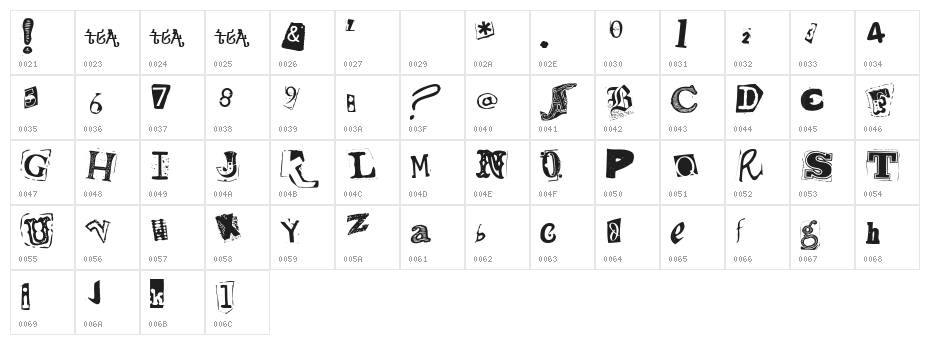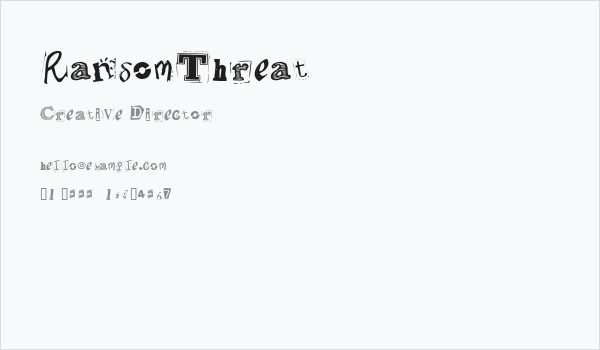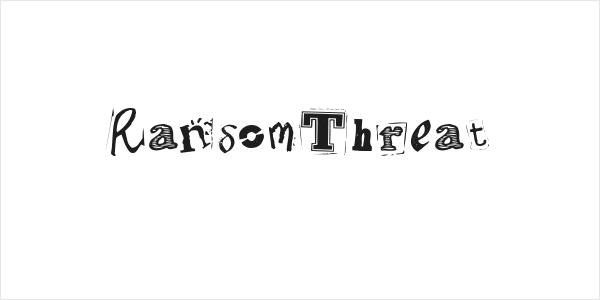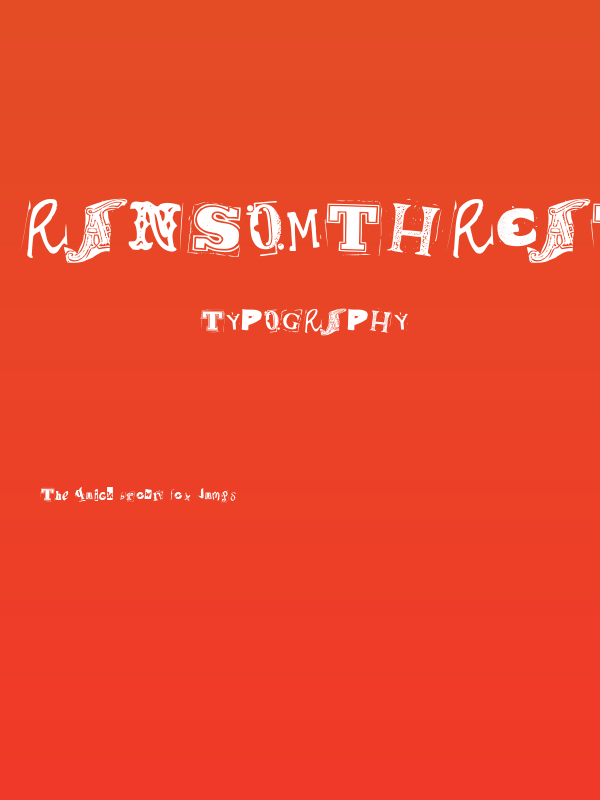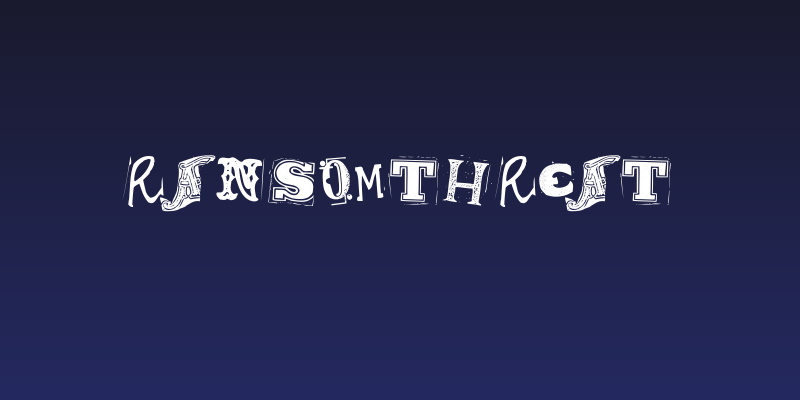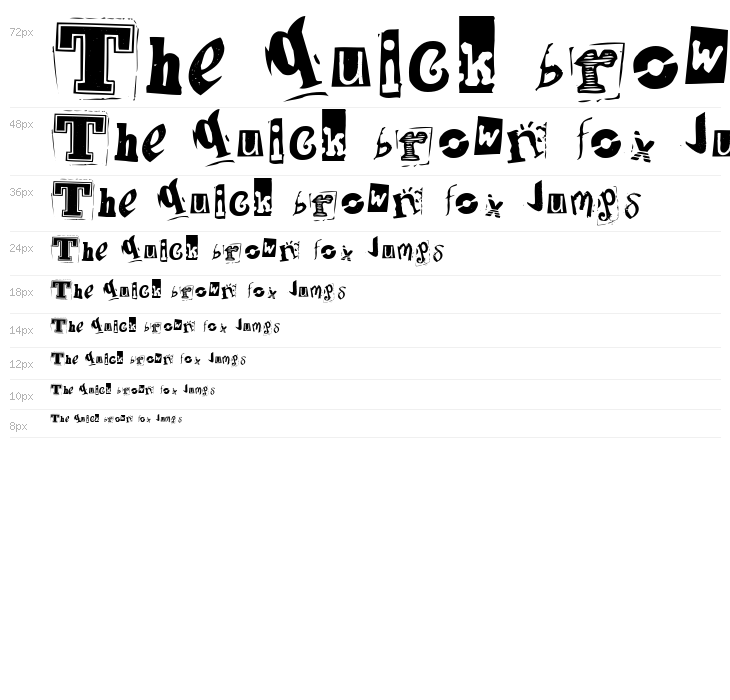
RansomThreat Font
RansomThreat Description
This font is a playful and eclectic mix of styles, reminiscent of letters cut from magazines or newspapers. Each character has a unique design, contributing to a chaotic yet intriguing aesthetic. The uppercase and lowercase letters vary significantly in style, with some featuring bold outlines, others with intricate patterns, and some with distressed textures. Numbers and special characters follow the same eclectic theme, ensuring a consistent yet unpredictable look throughout. This font is ideal for projects that require a sense of mystery or a playful, rebellious vibe.
| Use Case | Headlines, Posters, Creative Designs |
| Proposed Projects | Ideal for creative projects like posters, album covers, or themed event invitations that require a unique and eye-catching design. |